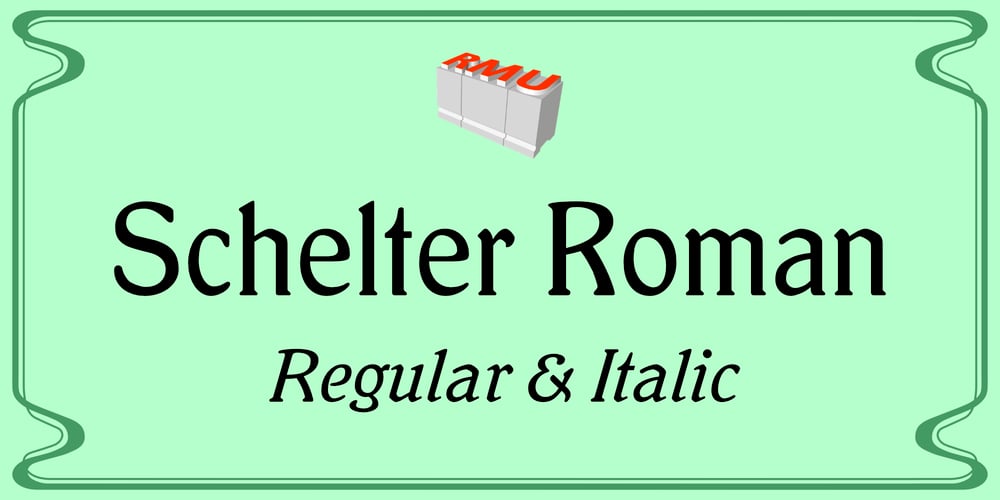
Schelter Roman Font Family was designed by Ralph M. Unger and published by RMU. Schelter Roman contains 2 styles and family package options. Inspired by the Schelter & Giesecke body text Antiqua, an Art Nouveau influenced font which was released at the beginning of the 20th century, Schelter Roman was carefully redrawn und redesigned for modern use.